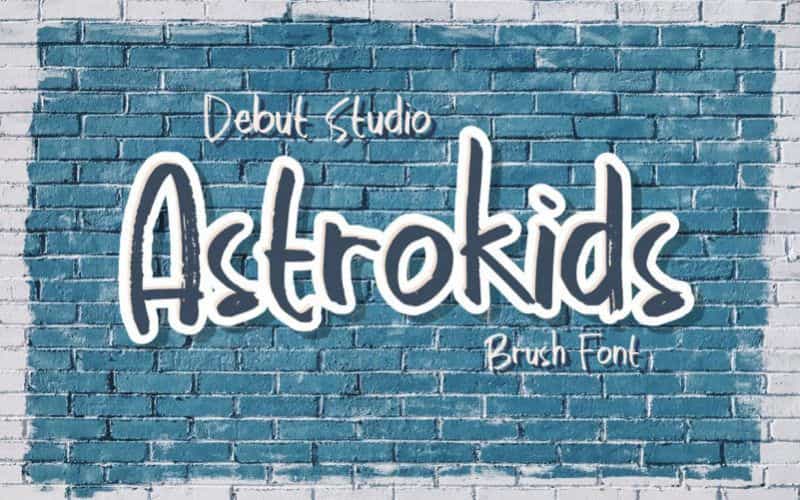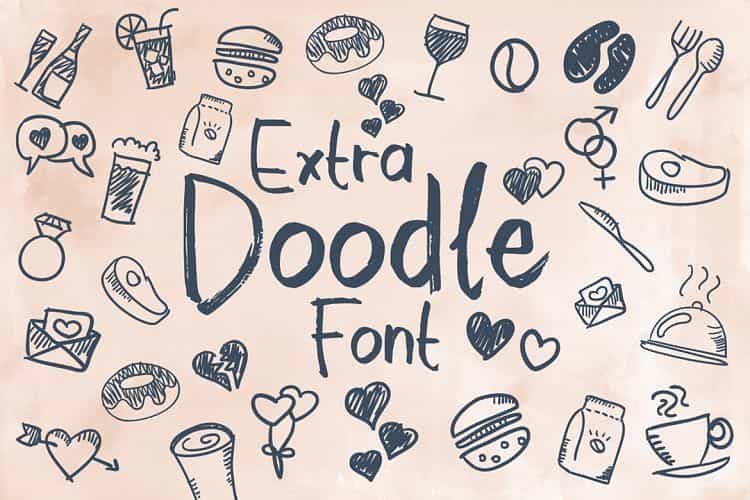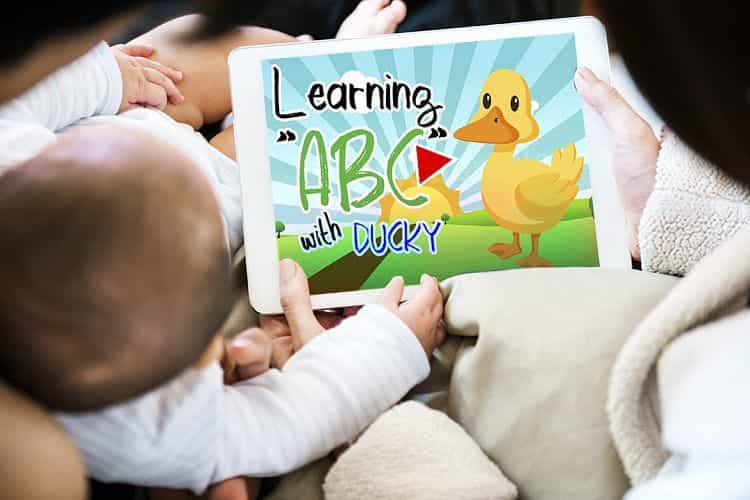
Here is our newest brush font. this brush font is unlike the previous one, Astrokids has a unique style on each letter. This font seems to be awesome when you use both uppercase and lowercase letters. and astrokids has 2 font files, that Regular and Doodle Version.